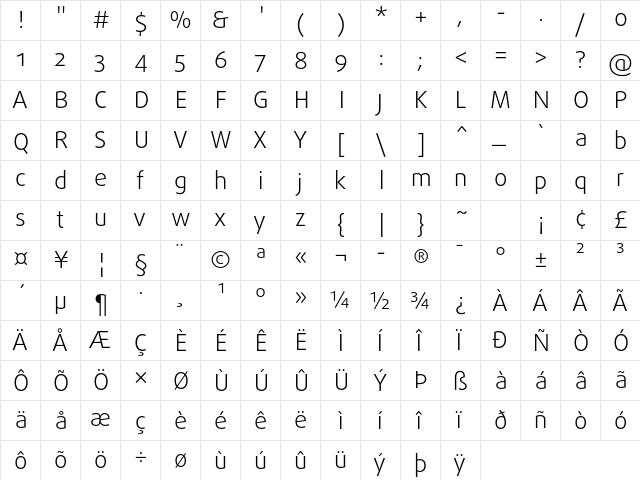
DaxlinePro Light
| Foundry | FSI Fonts und Software GmbH |
| Designer | Hans Reichel |
Design Context for DaxlinePro Typeface
DaxlinePro is a composed and adaptable typeface that performs quietly and consistently across a wide range of design contexts. The delicate stroke weight brings airiness and refinement to layouts.